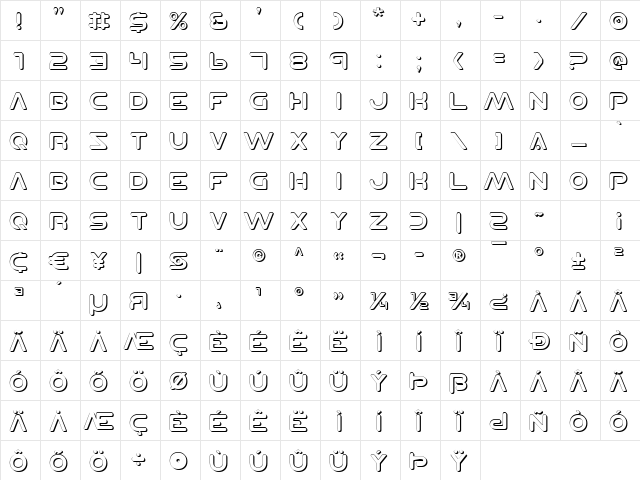
Planet N Shadow Shadow
Design Context for Planet N Shadow Typeface
Planet N Shadow is built around its visual character rather than neutral utility — its distinctive forms are designed to make an impression at display sizes.
Font Pairing: Pair with a clean neutral sans-serif for body copy to let Planet N Shadow's character lead without overwhelming the composition.
Pro Tip: Use Planet N Shadow exclusively at display sizes — it was designed to be seen, not read at length. Let a neutral companion handle body copy.